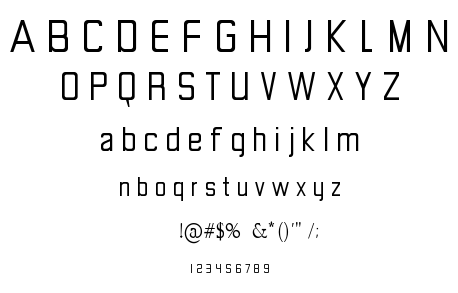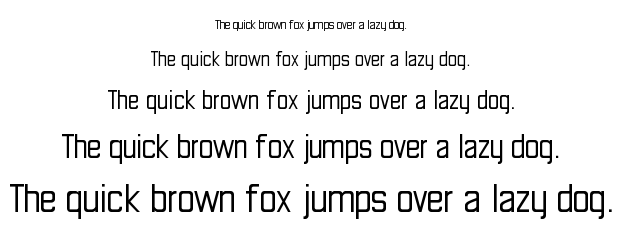
Goody
Goody Font
Goody is designed as a font character title.
The font includes all letters of Azerbaijan and English language.
Font by Chingiz Adilov